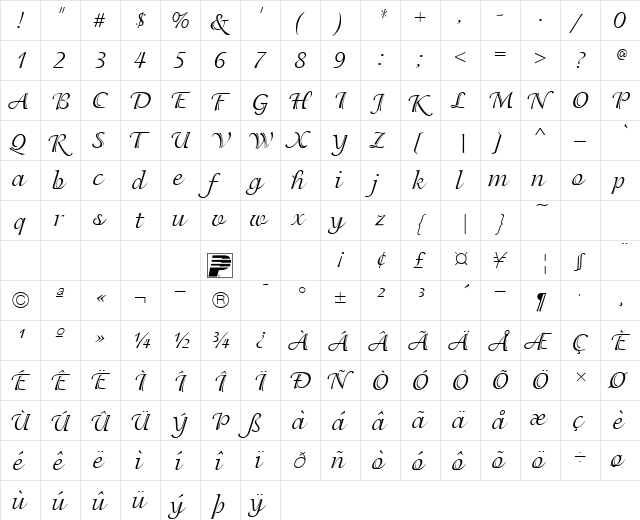
PT Tassel Normal
Design Context for PT Tassel Typeface
PT Tassel is a composed and adaptable typeface that performs quietly and consistently across a wide range of design contexts.